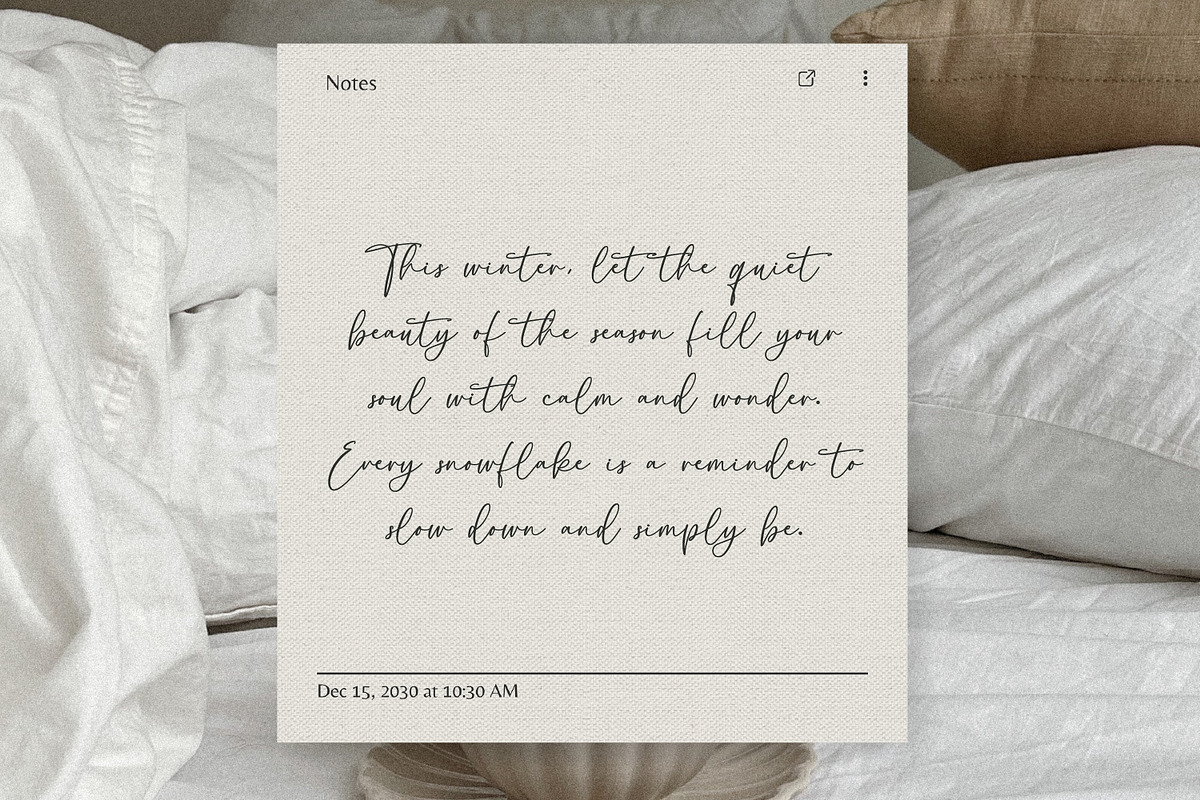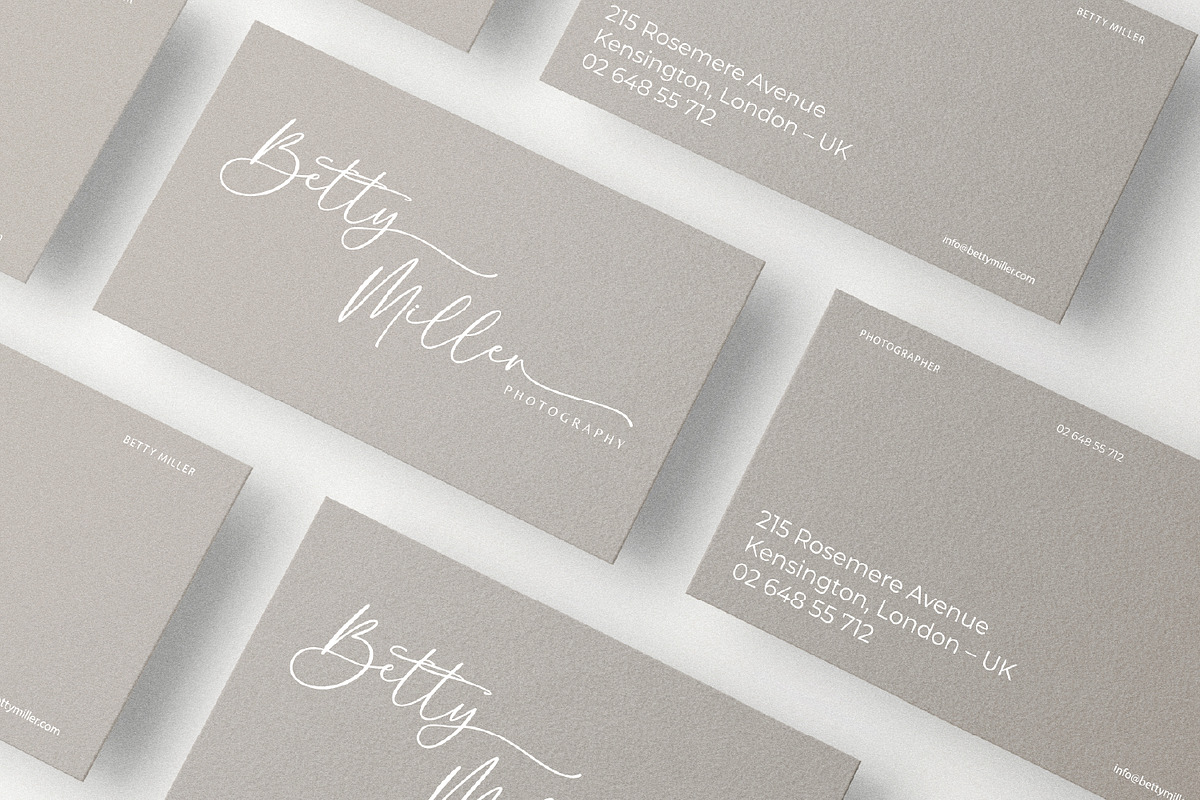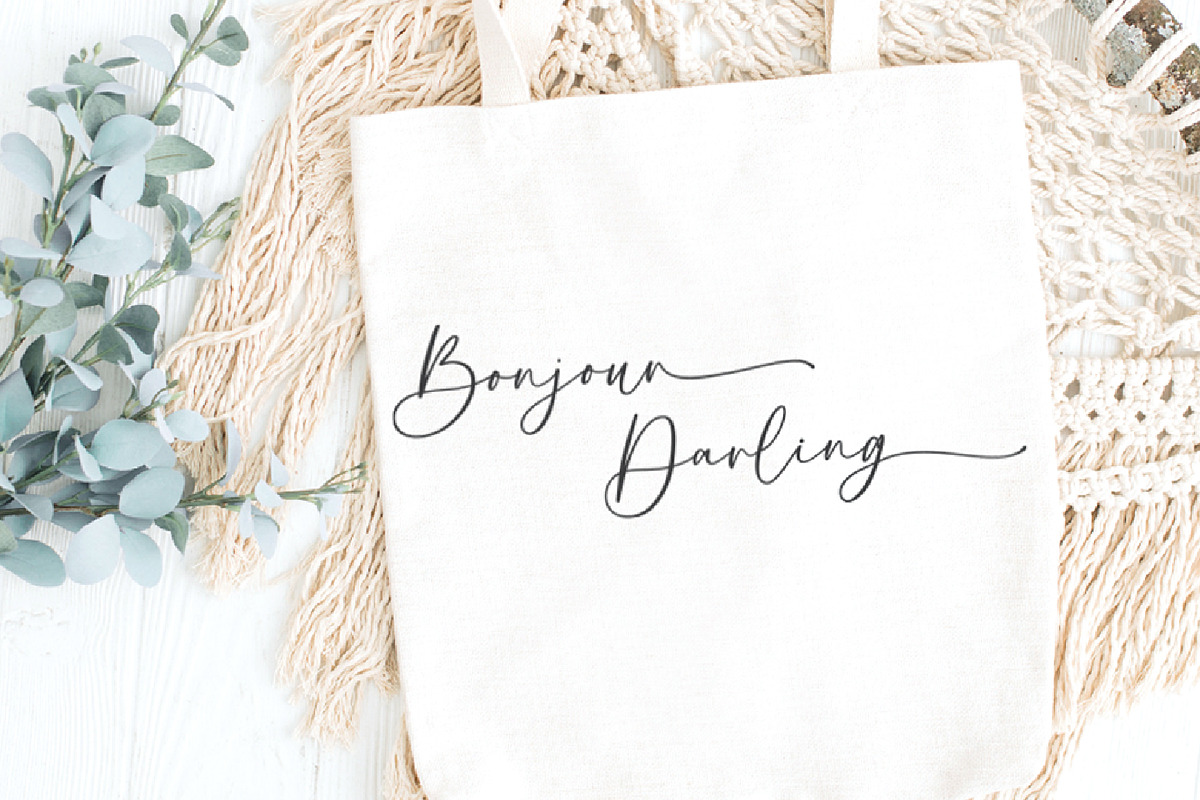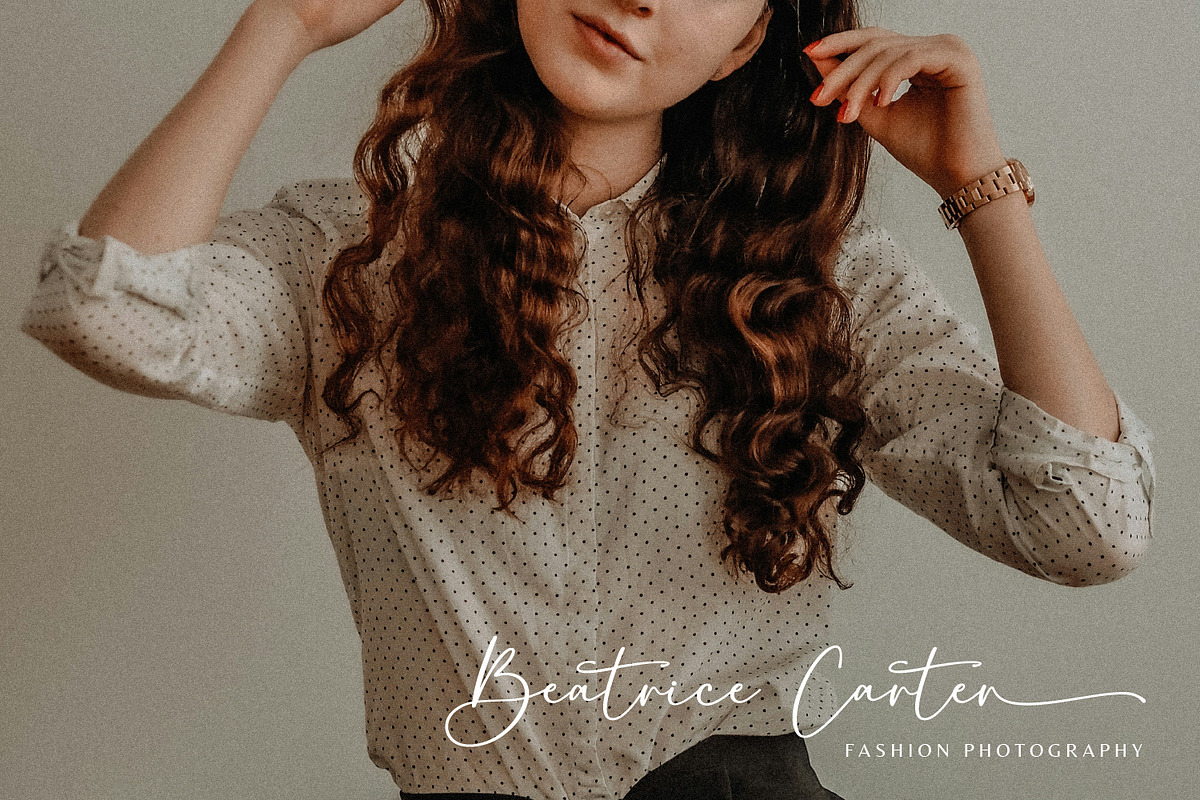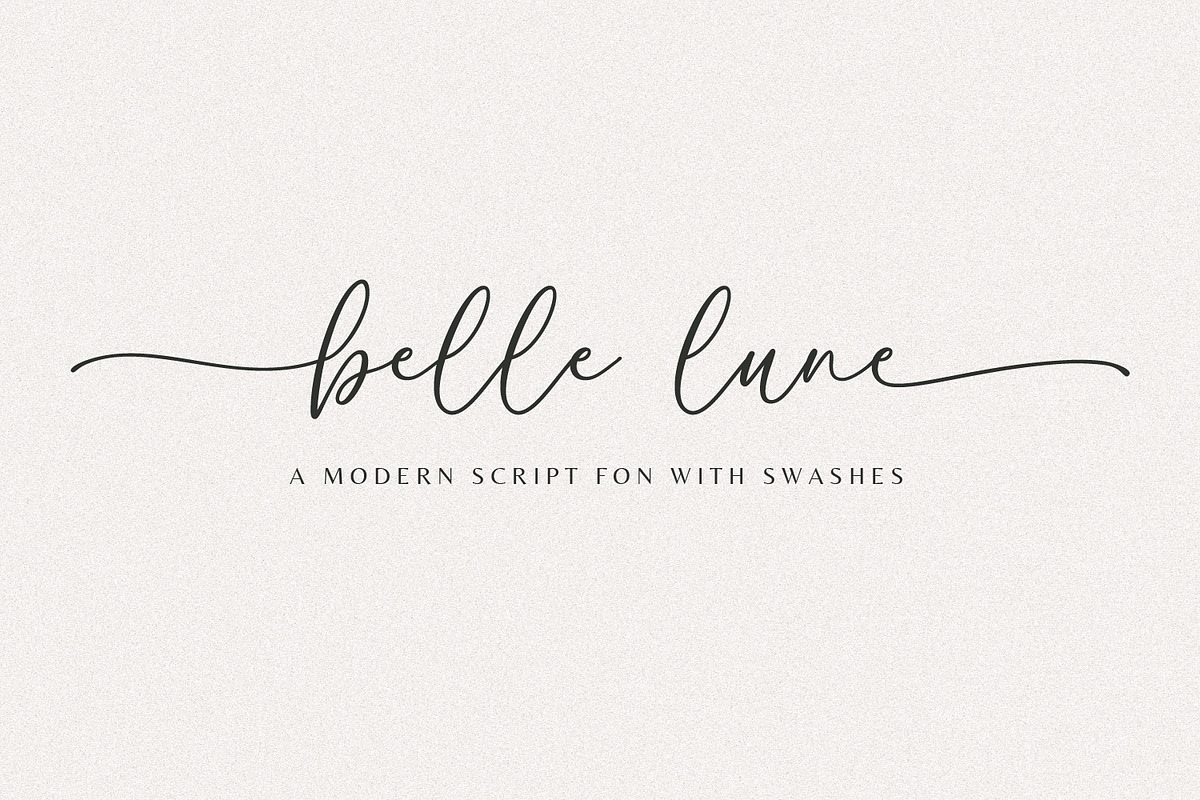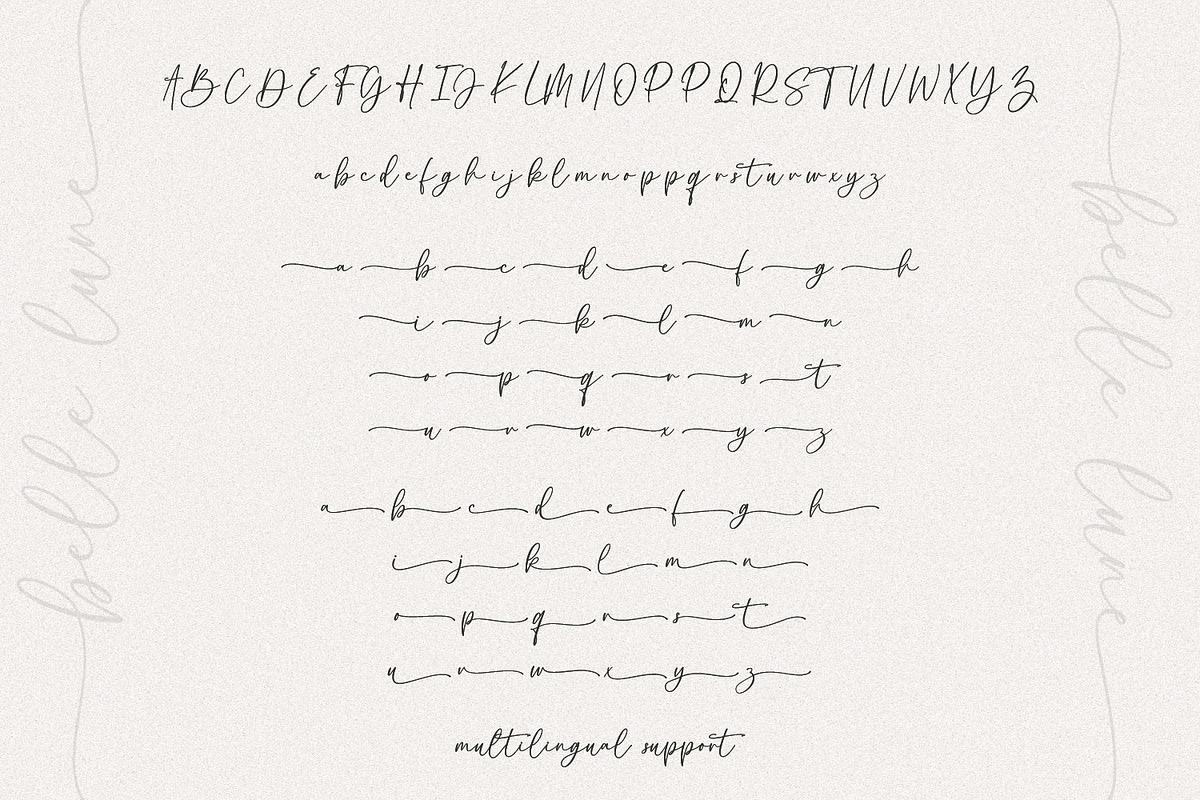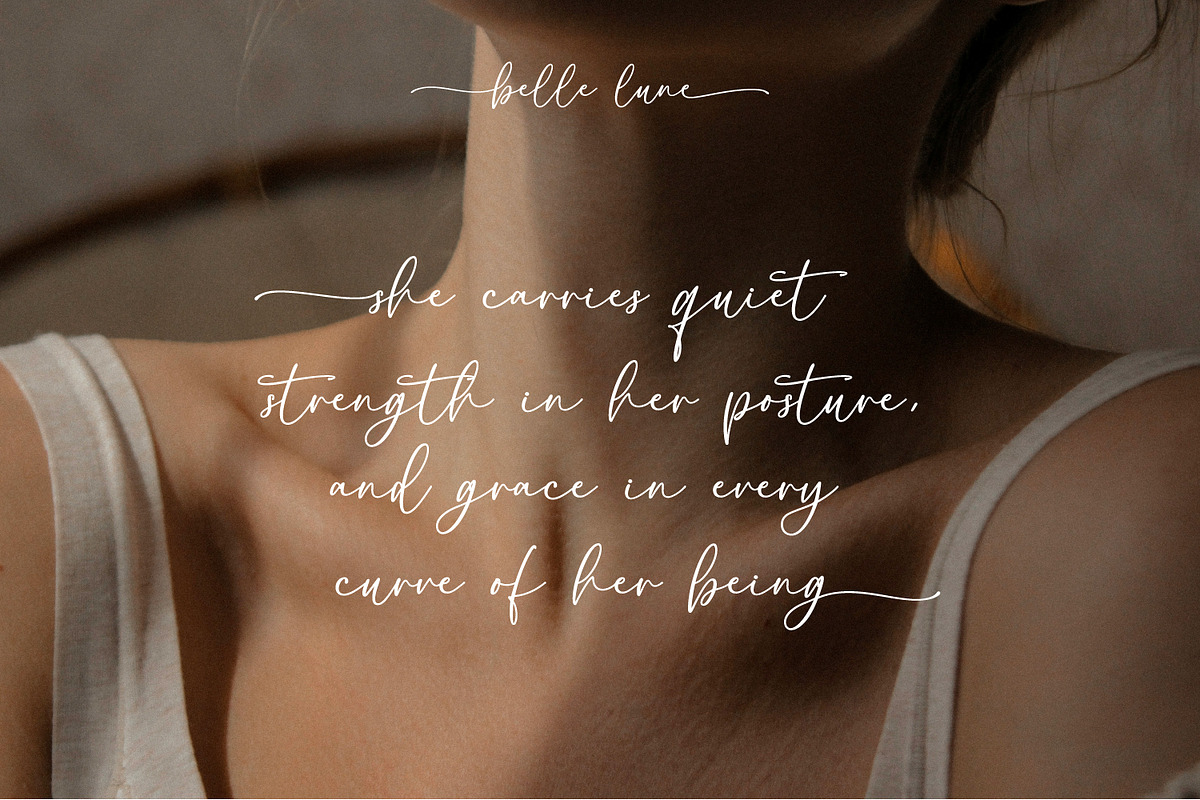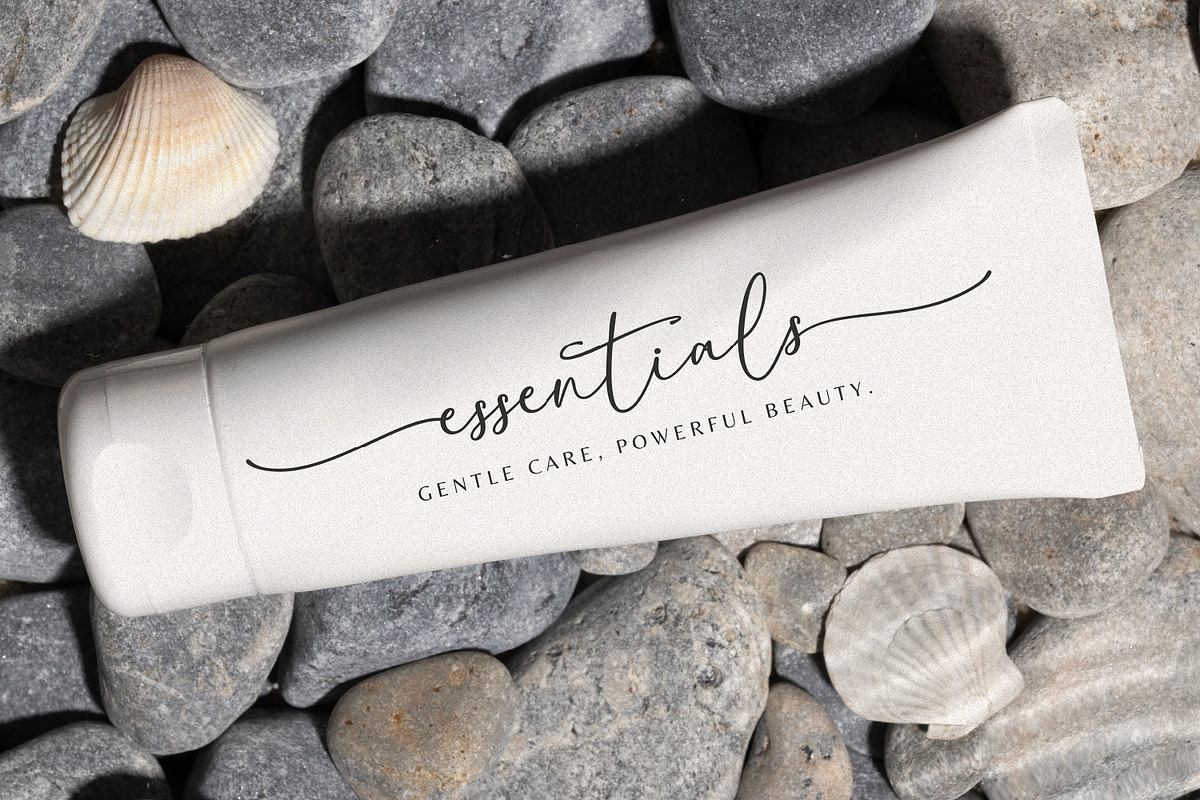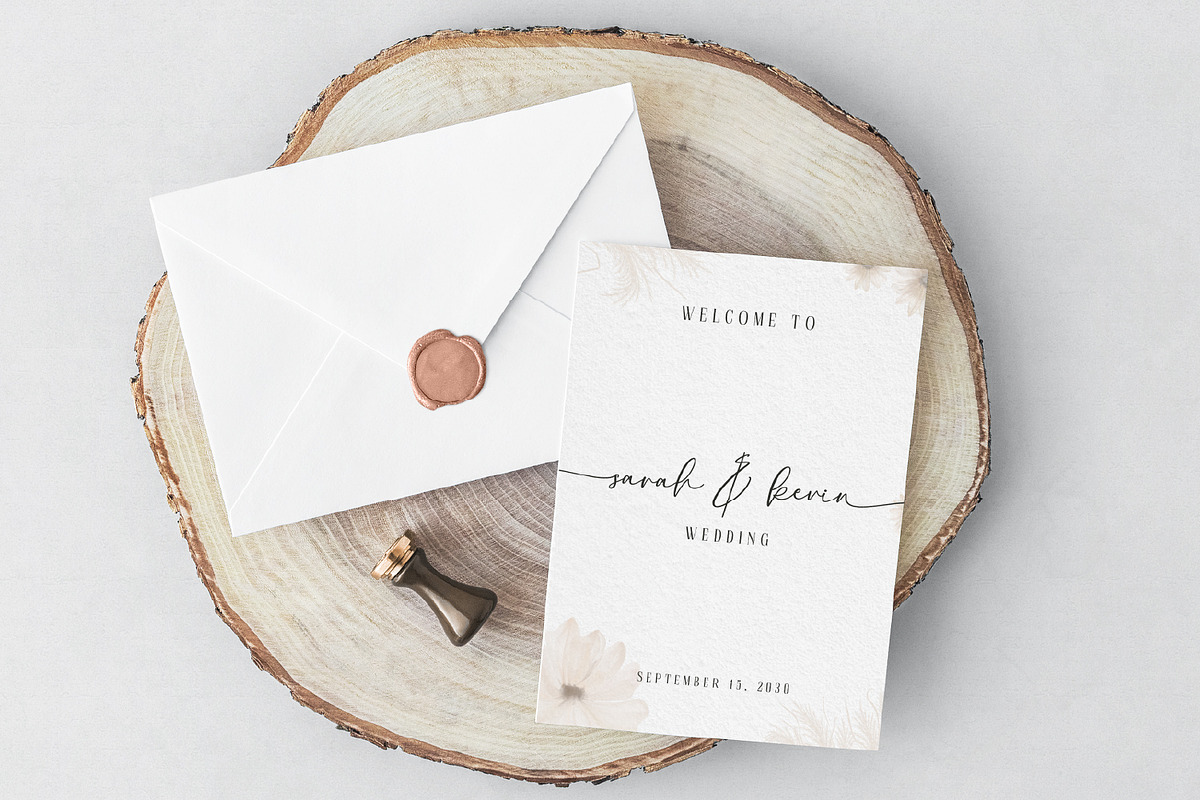
Belle Lune Script
💫 Belle Lune – Elegant Handwritten Script Font
Introducing Belle Lune, a graceful handwritten script that captures the charm of soft pen strokes and timeless sophistication. Designed with gentle curves and flowing lines, Belle Lune brings a touch of feminine elegance to every project — perfect for branding, wedding invitations, logos, packaging, stationery, or social media designs.
Each letter in Belle Lune is carefully crafted to create natural movement and effortless connection, giving your text a personal, handwritten feel that remains clean and professional.
🌙 Font Features • Files included: OTF, TTF, and WOFF formats • PUA Encoded: Easily access all swashes and stylistic alternates without special software • Stylistic Alternates & Swashes: Add beautiful, flowing details to your lowercase letters for a refined touch • Multilingual Support: Fully supports European and South American languages • Smooth, elegant strokes: Perfect for both modern and classic designs
Let Belle Lune illuminate your designs with elegance and simplicity — a handwritten font that feels both modern and timeless.